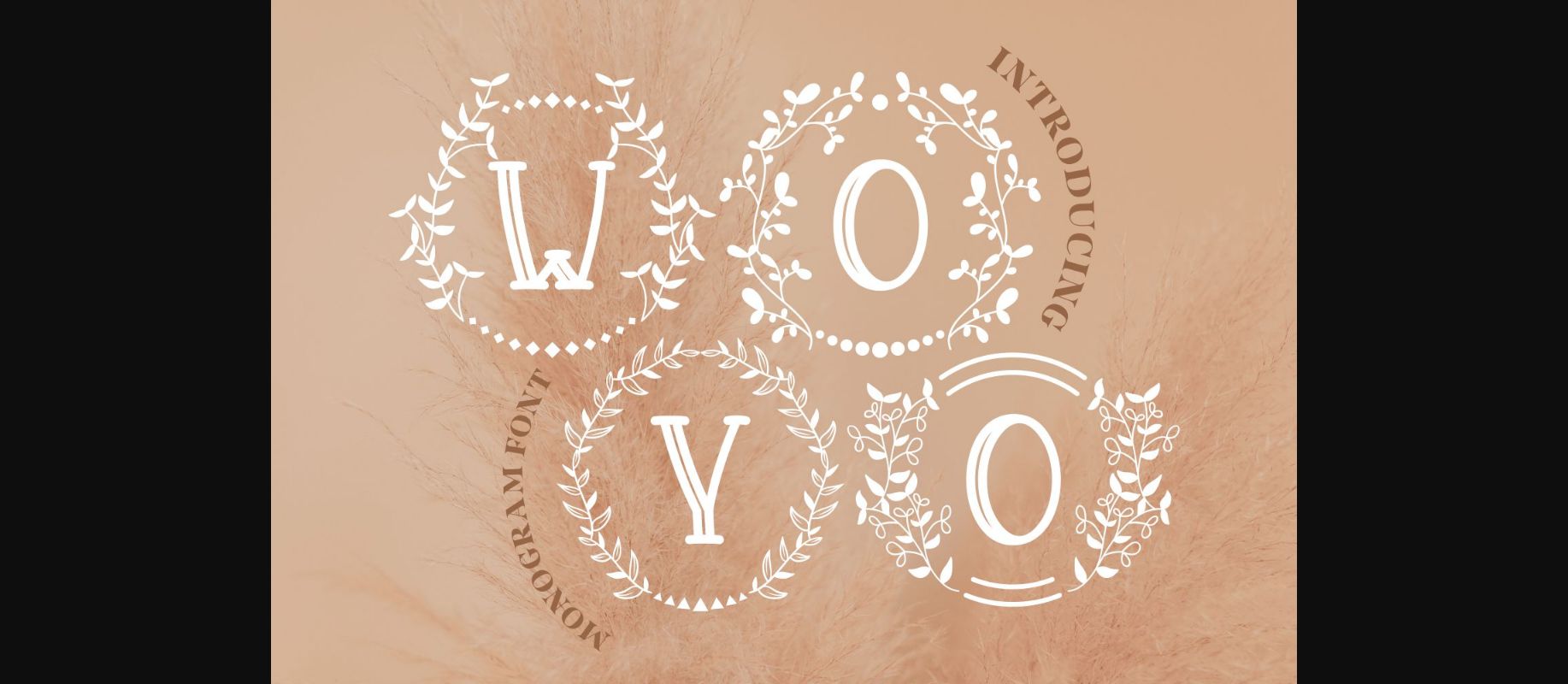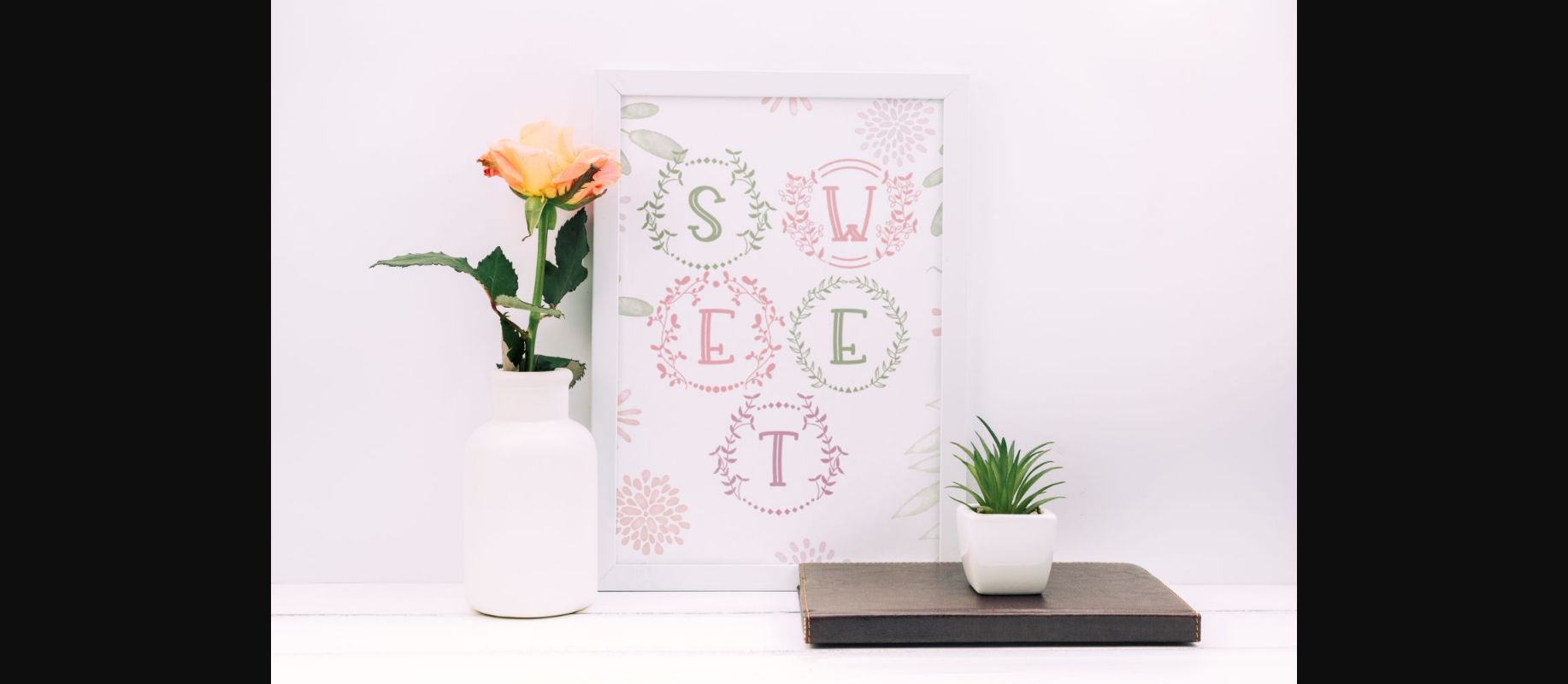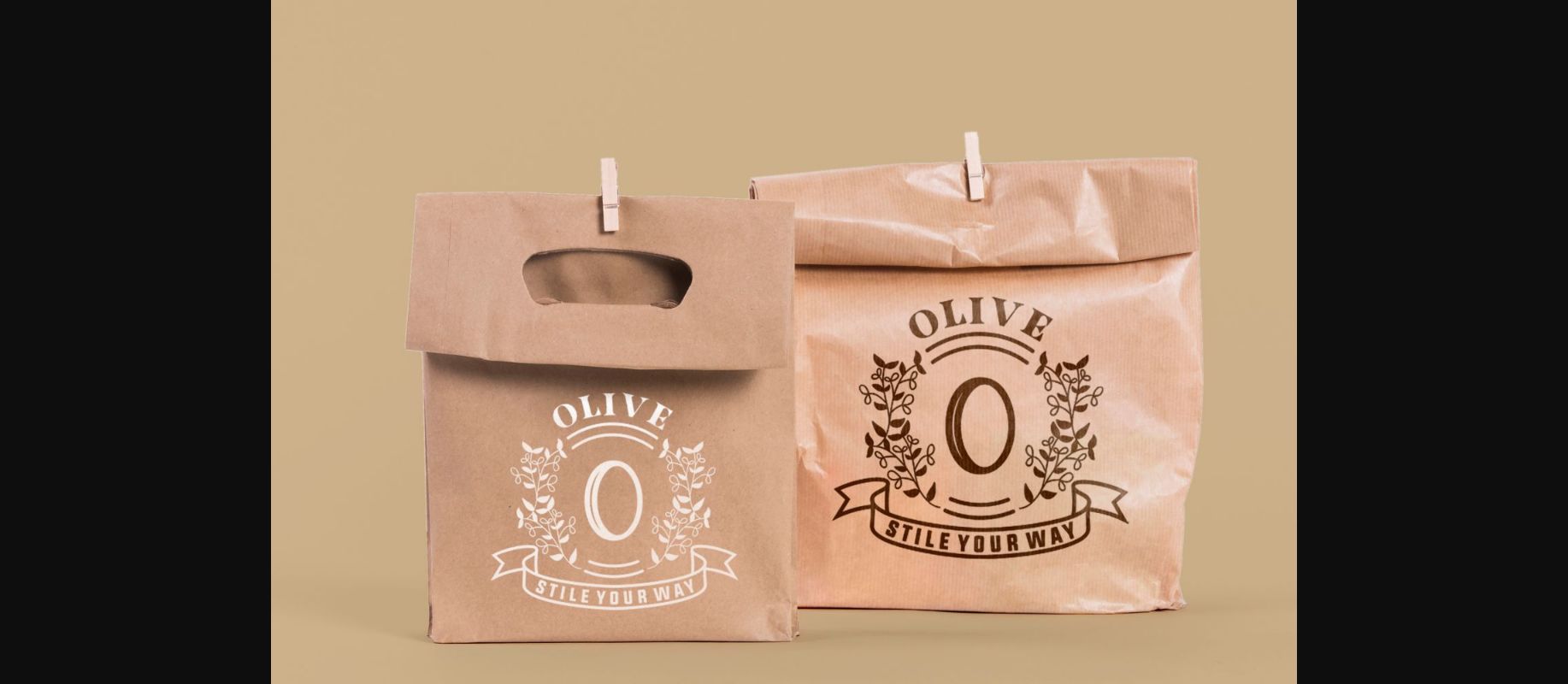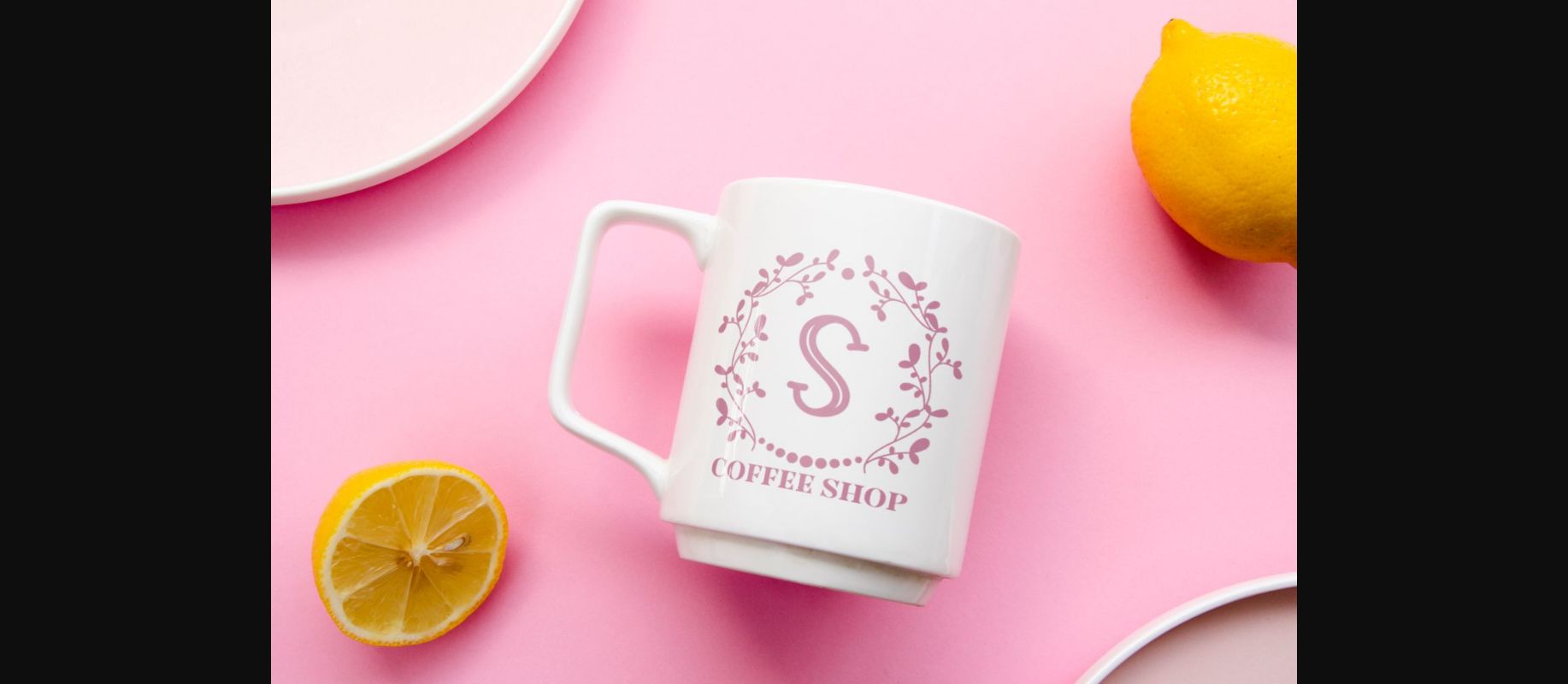
Woyo Font
About Woyo Font
Create gorgeous and timeless designs with Woyo, an interesting and unique decorative font.
Fall in love with its incredibly stylish look and use it for logos, quotes, invitations, business cards, power point presentations, and more!